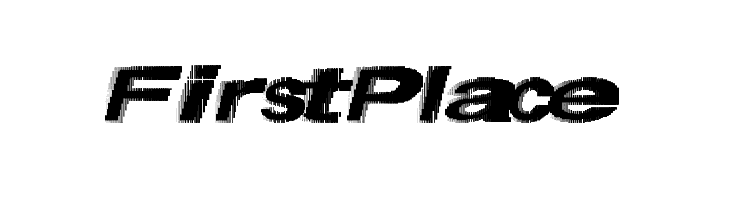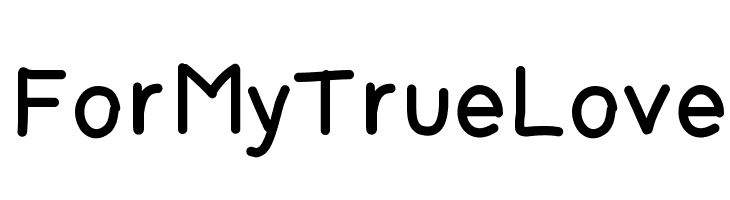
A modern, elegant script font with fluid, cursive letterforms.
A sleek, modern font with elongated, narrow characters and a geometric flair.
A bold, distressed font with a rough, textured appearance, perfect for vintage or industrial designs.
A whimsical, hand-drawn font with tall, narrow letters and playful curves.
A bold, jagged font with an energetic, explosive style.
A bold, handwritten font with a playful and energetic style.
A bold, decorative font with vintage, ornate serifs and flourishes.
A futuristic, bold font with a horizontal line gradient effect.
A bold, decorative font with a three-dimensional, playful style.
A dynamic, cursive script font with a handwritten feel.
An elegant and flowing script font with intricate loops and swirls.
An elegant, cursive font with sweeping curves and stylish flourishes.
A bold, hand-crafted font with a rugged and angular design.
A whimsical, hand-drawn script font with decorative swirls and bold characters.
A bold, gothic-inspired font with sharp, angular lines and decorative details.
A lively, handwritten font with expressive, cursive strokes.
A lively, cursive font with flowing, interconnected letters and a calligraphic style.
A modern, geometric font with sleek curves and sharp angles.
A bold, stencil-style font with geometric cut-out designs.
A lively and dynamic script font with flowing, cursive letterforms.
A pixelated, retro-style font ideal for digital and nostalgic designs.
A futuristic, mechanical font with intricate circuit-like details and a bold, industrial style.
A rugged, distressed font with a barbed wire design and a rustic, industrial aesthetic.
A playful, handwritten font with tall, narrow letters and uneven strokes.
A bold, striped, italic font with a futuristic and dynamic style.
A bold, fluid script font with interconnected letters and dramatic flourishes.
A bold, hand-drawn font with a rugged, artistic style.
A dynamic, expressive handwritten script font with fluid, connected strokes.
A bold, decorative font with elegant swirls and flourishes.
An elegant, flowing script font with smooth, continuous strokes and a handwritten touch.
A playful, handwritten font with smooth, rounded strokes.
A bold, italicized font with a gradient effect created by horizontal lines.